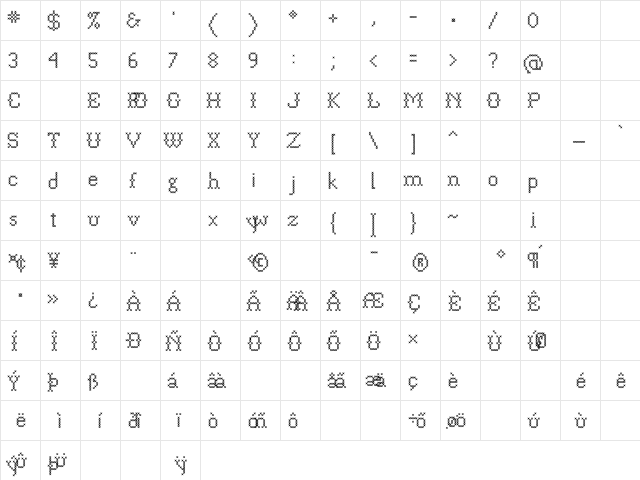
P22 Folk Art Cross Regular
Design Context for P22 Folk Art Cross Typeface
P22 Folk Art Cross is a composed and adaptable typeface that performs quietly and consistently across a wide range of design contexts.